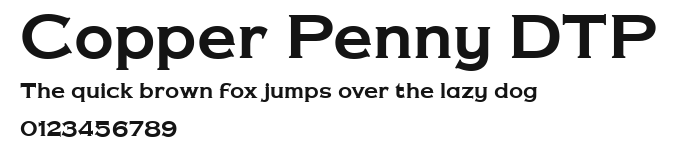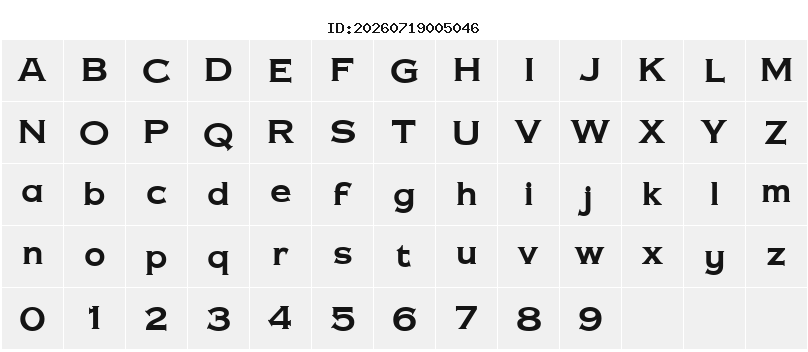
• Font Name: Copper Penny DTP
• Full Font Name: Copper Penny DTP Normal
• PostScript Name: CopperPennyDTPNormal
• Manufacturer: The Fontry & JLS
About Copper Penny DTP.ttf
Copper Penny DTP.ttf is a modern, elegant sans-serif font designed for ultimate readability and visual harmony. Perfect for branding, headlines, web design, and print materials.